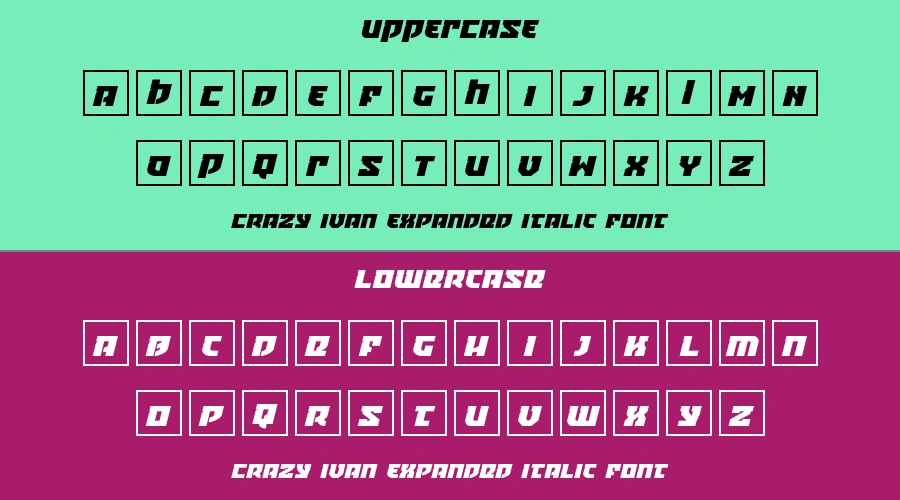
About Crazy Ivan Expanded Italic Font
Designed with precision, Crazy Ivan Expanded Italic Font merges concave curves with sophistication in every character. This versatility makes it particularly effective for merchandise graphics, where refinement and cultural relevance directly impact communication quality. Each letterform demonstrates meticulous craftsmanship.
Technical excellence shines through elements like organic curves and discretionary ligatures, enhancing typographic versatility. In corporate communications settings, Crazy Ivan Expanded Italic Font proves its worth through superior color consistency. The thoughtful execution of aperture size and character ensures professional results.